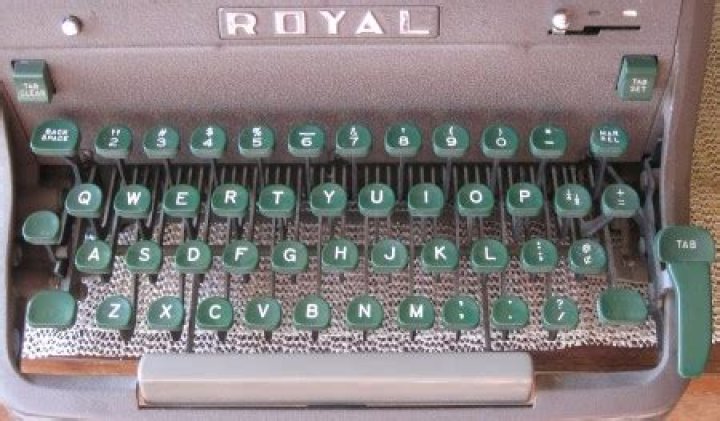
Royal had the following typefaces as per their scarce booklet that belongs to our collection: Pica. Modern PICA – Exclusive Royal Type. Intermediate PICA – Slightly larger than regular.
What is the font that looks like a typewriter?
Courier M A version of the classic Courier font, Courier M is a typewriter typeface, designed by Howard Kettler in 1956. Released by font foundry URW, Courier M is a clean, classical lightweight typewriter font.
What font is closest to old typewriter?
Hammer Keys
Out of the fonts we’ve seen so far, Hammer Keys is the one that comes the closest to capturing the style of an old typewriter.
What is the old typewriter font called in Word?
Typewriter font The font used in typewriters is \”courier\”.
Did typewriters have different fonts?
Sans serif, script, and italic fonts were also included in early typewriter-font catalogs. We can find typefaces created for the machine with different character widths, and some monospaced typefaces designed today have no aesthetic or historical link to typewriters.
What size is typewriter font?
The most widespread fonts in typewriters are 10 and 12 pitch, called Pica and Elite, respectively. Both fonts have the same x-height, yielding six lines per vertical inch. There may be other font styles with various width: condensed or compressed (17–20 cpi), italic or bold (10 pitch), enlarged (5–8 cpi), and so on.
Does Word have a typewriter font?
Courier Font Family This font family comes to mind immediately when talking about typewriter fonts on Word. It contains all the “typewriter font characteristics” that you can possibly look for – a slab serif look with that monospace design.
What size font did typewriters use?
What is Royal Typewriter?
The Royal Typewriter Company was a manufacturer of typewriters headquartered in New York City with its factory in Hartford , Connecticut. Contents. History. The Royal Typewriter Company was founded by Edward B. Hess and Lewis C. Myers in January, 1904 in a machine shop in Brooklyn, New York.